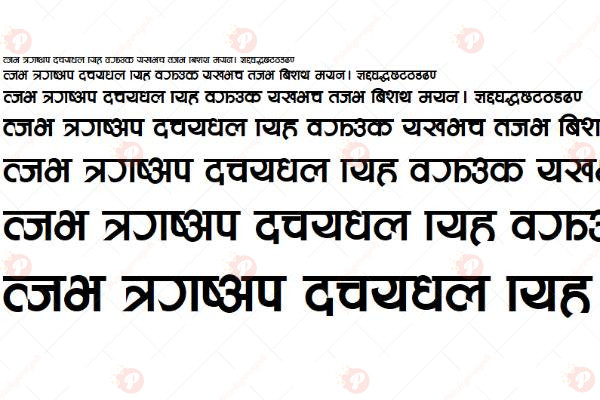
The Aakriti Bold Font is a powerful and stylish typeface designed to grab attention. With its bold strokes and modern design, this font is perfect for headlines, posters, banners, logos, social media posts, and branding projects.
If you’re looking for a typeface that combines strength with elegance, Aakriti Bold is the perfect choice.
Style: Bold / Modern / Display Typeface
Perfect for: Headlines, Posters, Logos, Banners, Digital & Print Designs
Bring impact and clarity to your designs with the Aakriti Bold Font.